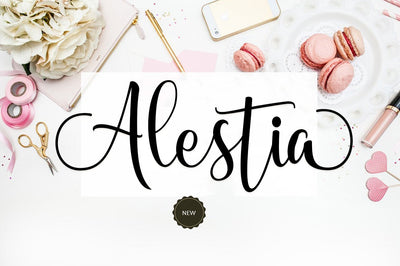
Alestia
Alestia is a lovely and timeless handwritten font. It is the best choice for creating eye catching logos, branding and quotes. Every letter has a unique and beautiful touch, which will make your design come alive!